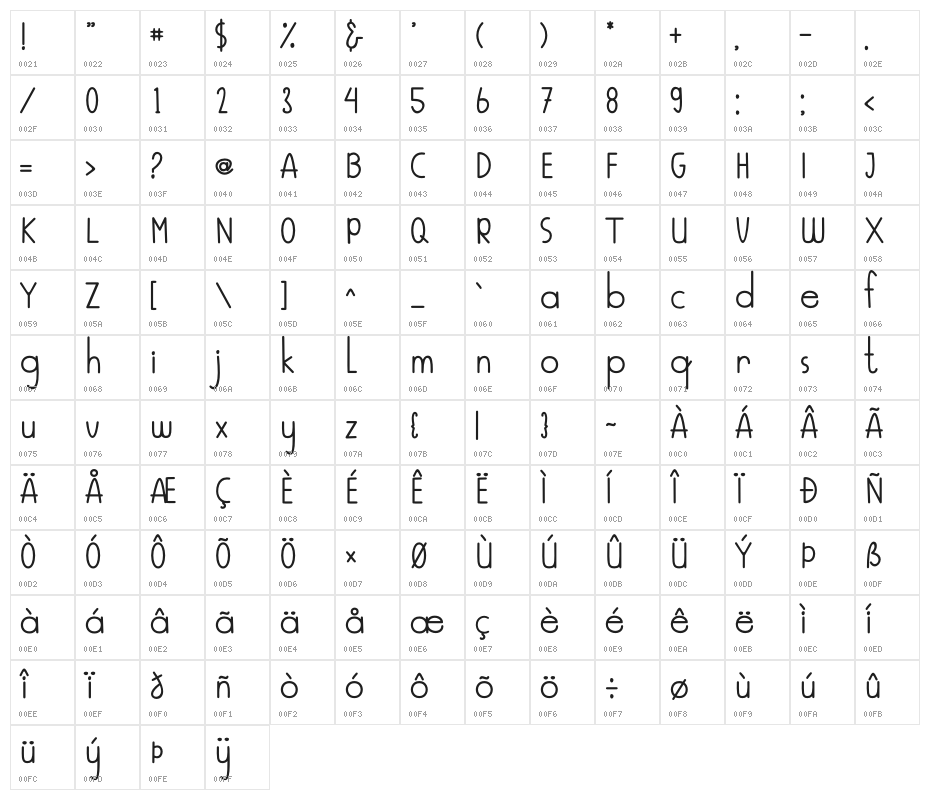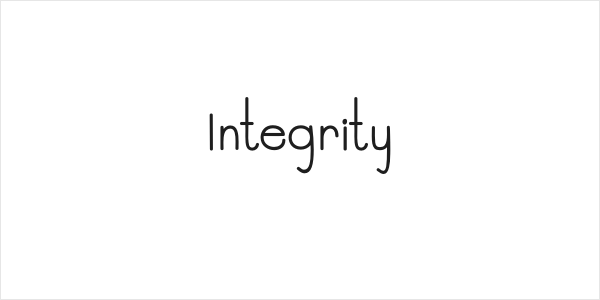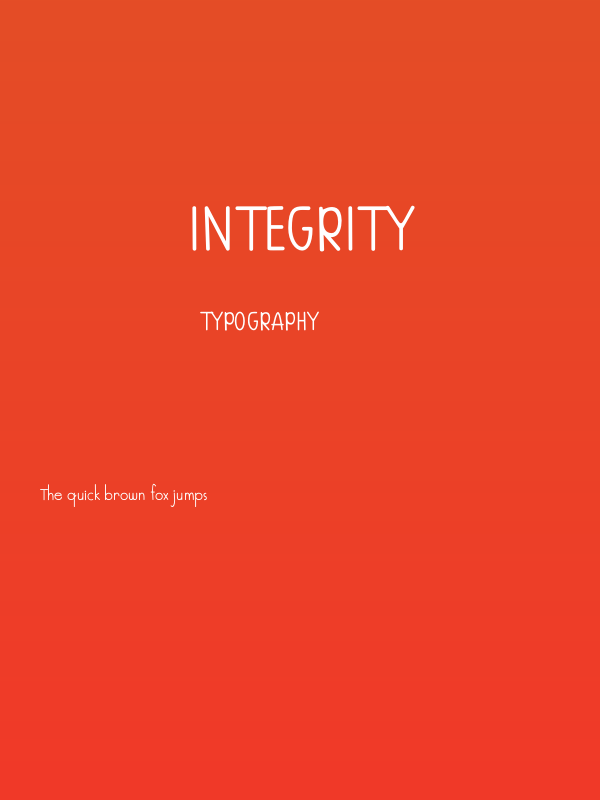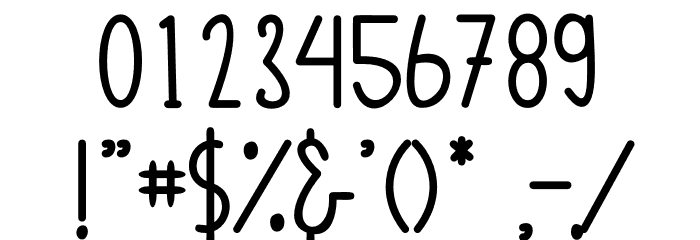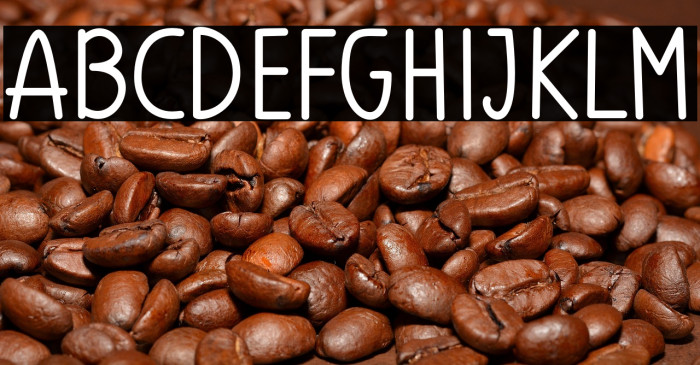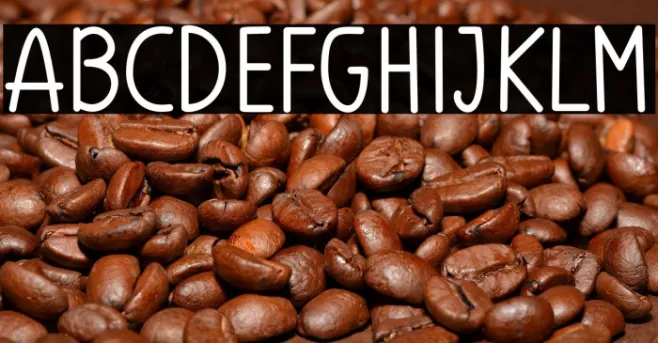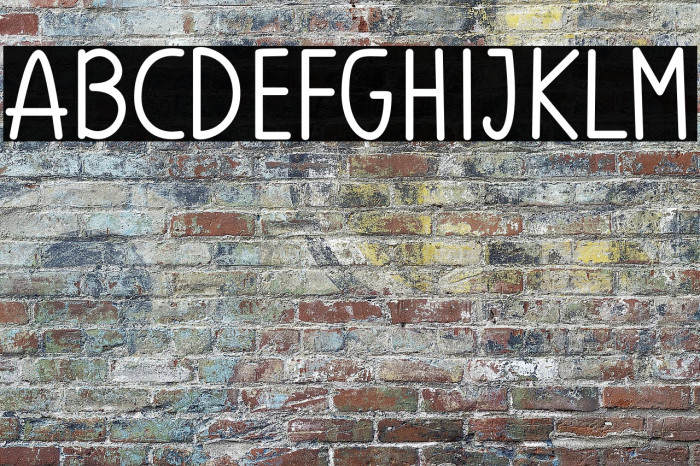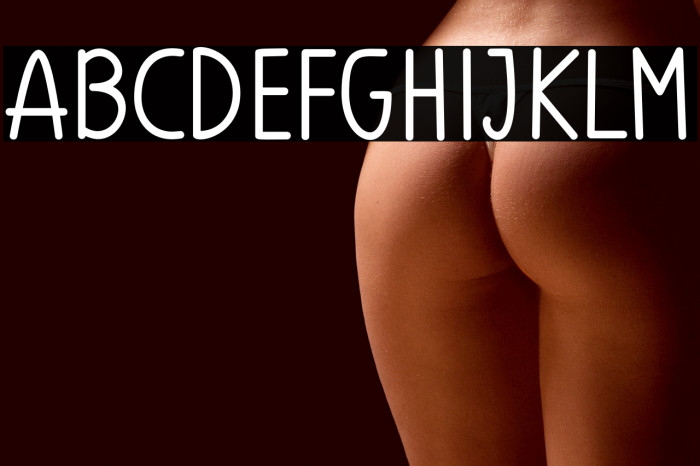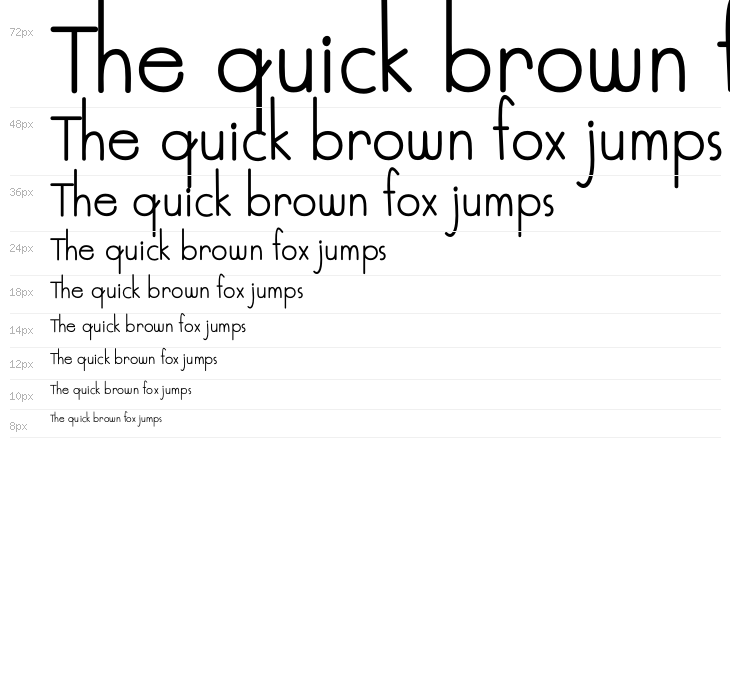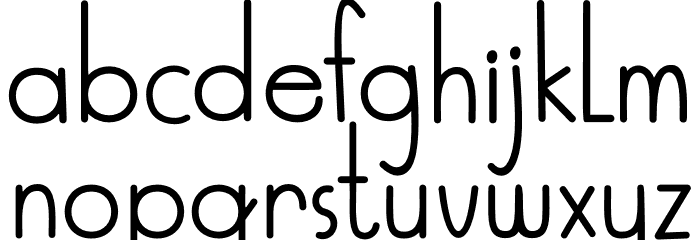
Integrity Font
Integrity Description
This font features a playful and whimsical style with rounded edges and a hand-drawn appearance. The letters are tall and narrow, giving them a unique and approachable look. The uppercase and lowercase letters maintain a consistent style, with slight variations that add to the font's charm. The numerals are clear and easy to read, while the special characters complement the overall design. This font's simplicity and friendliness make it suitable for a variety of creative projects.